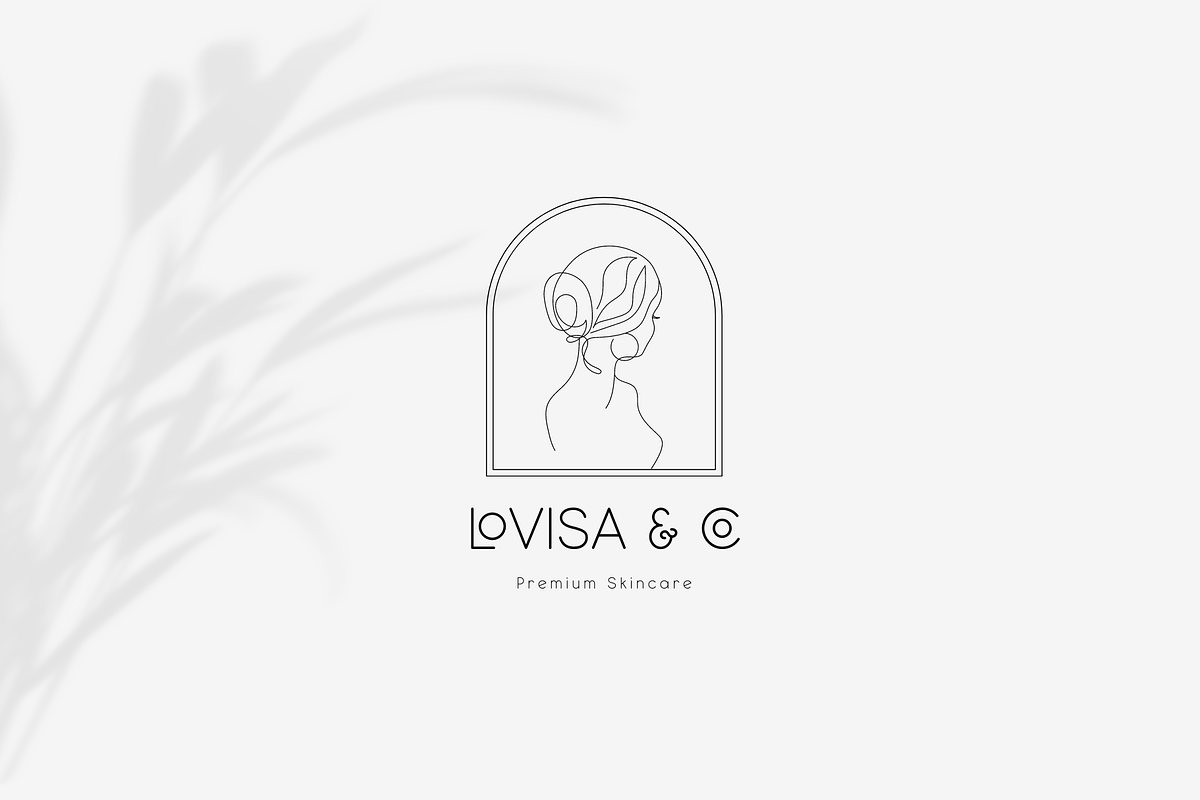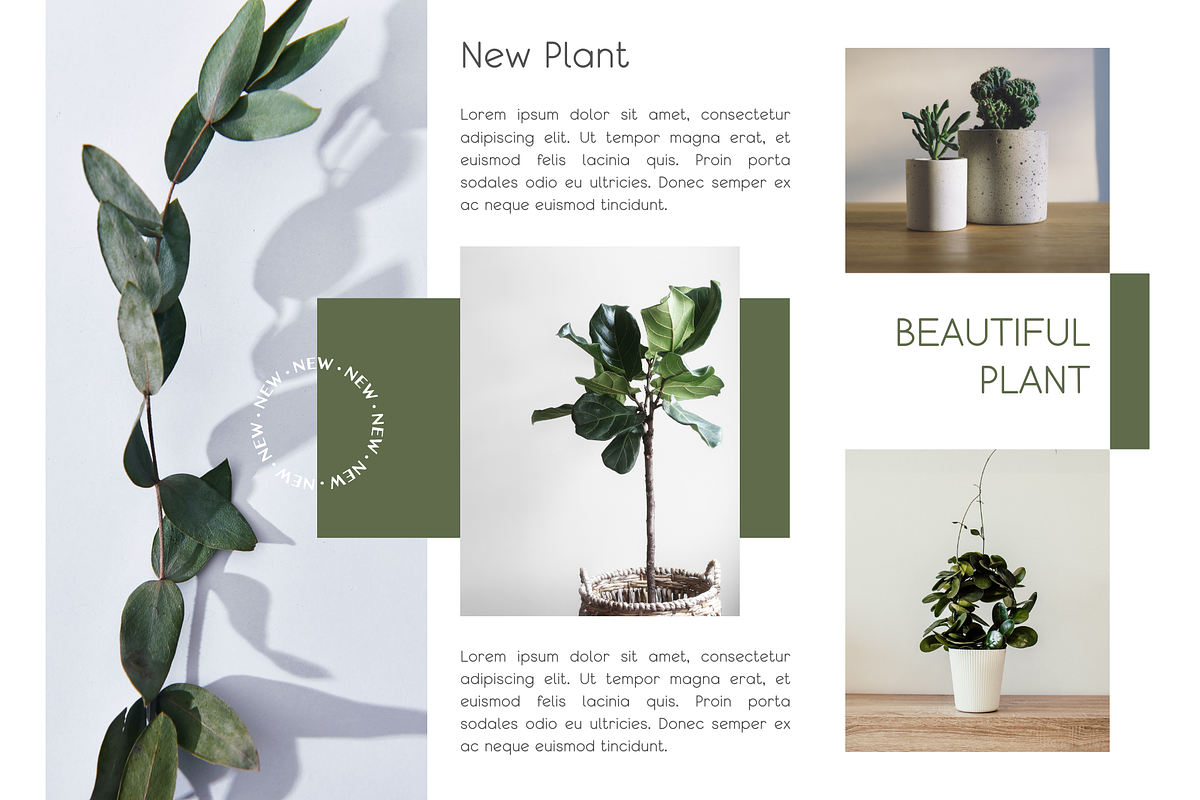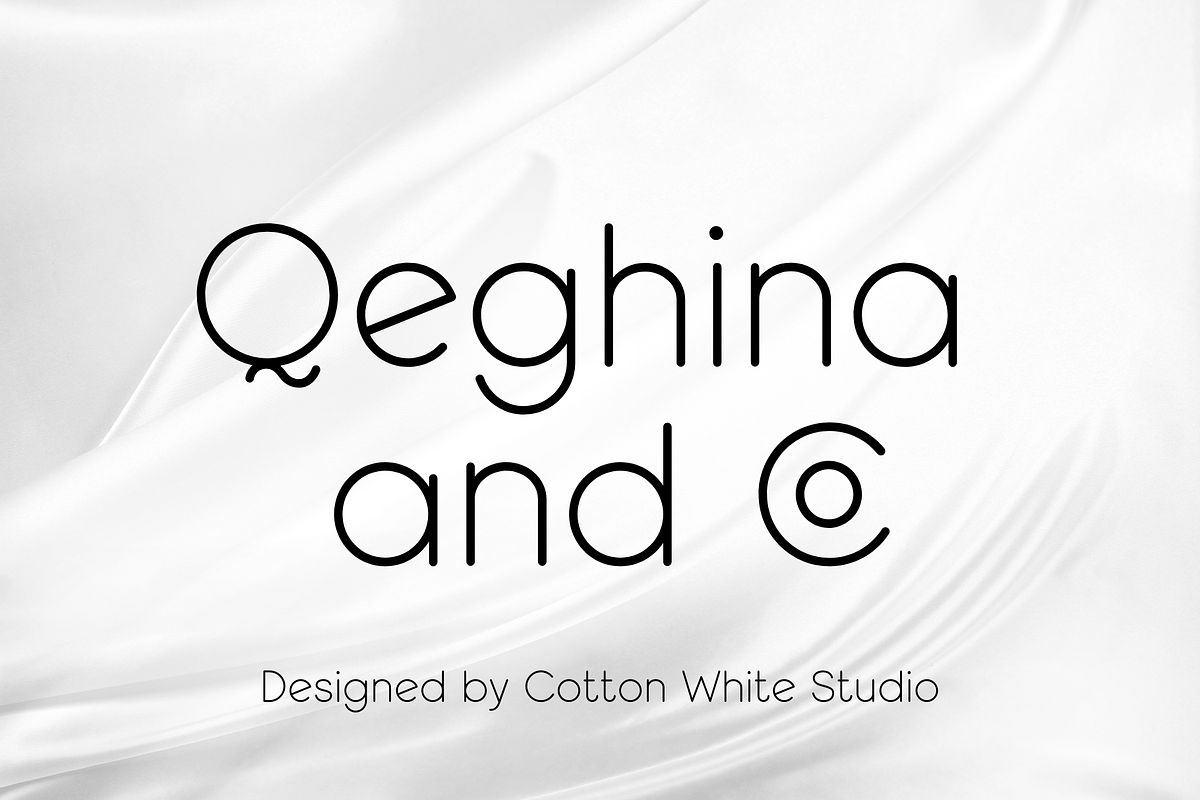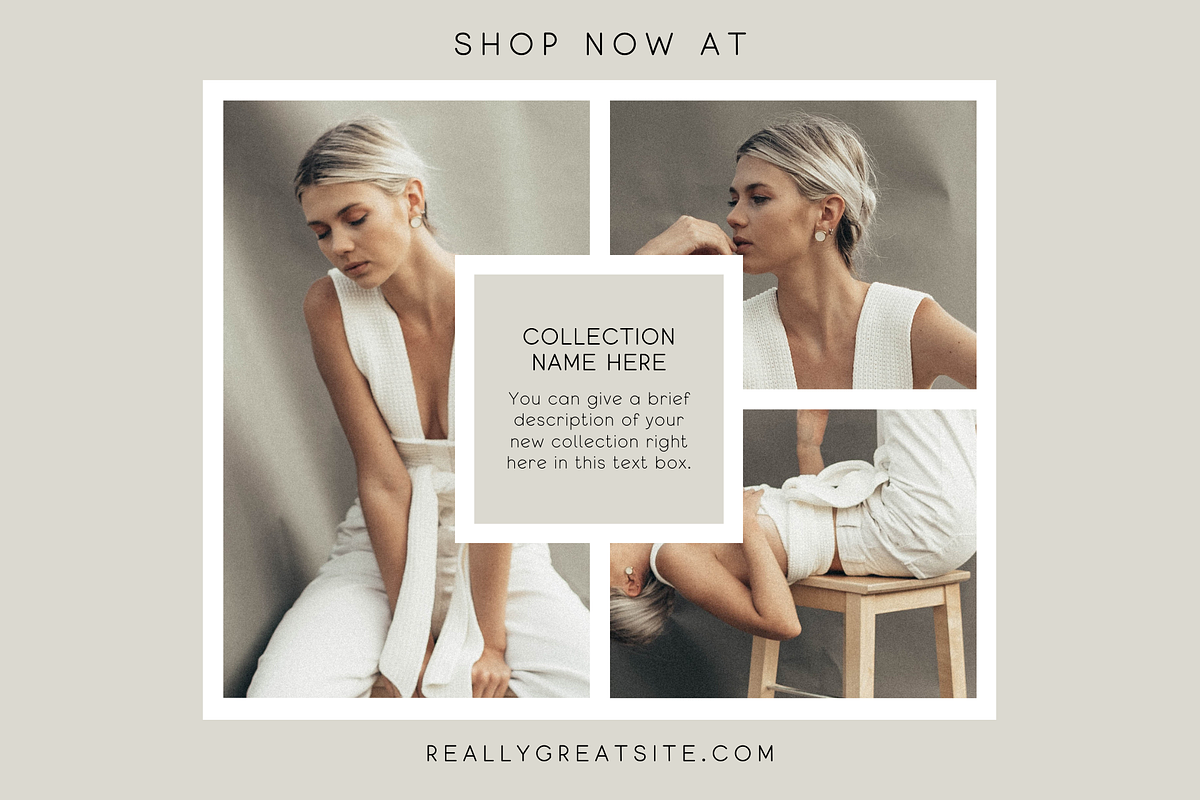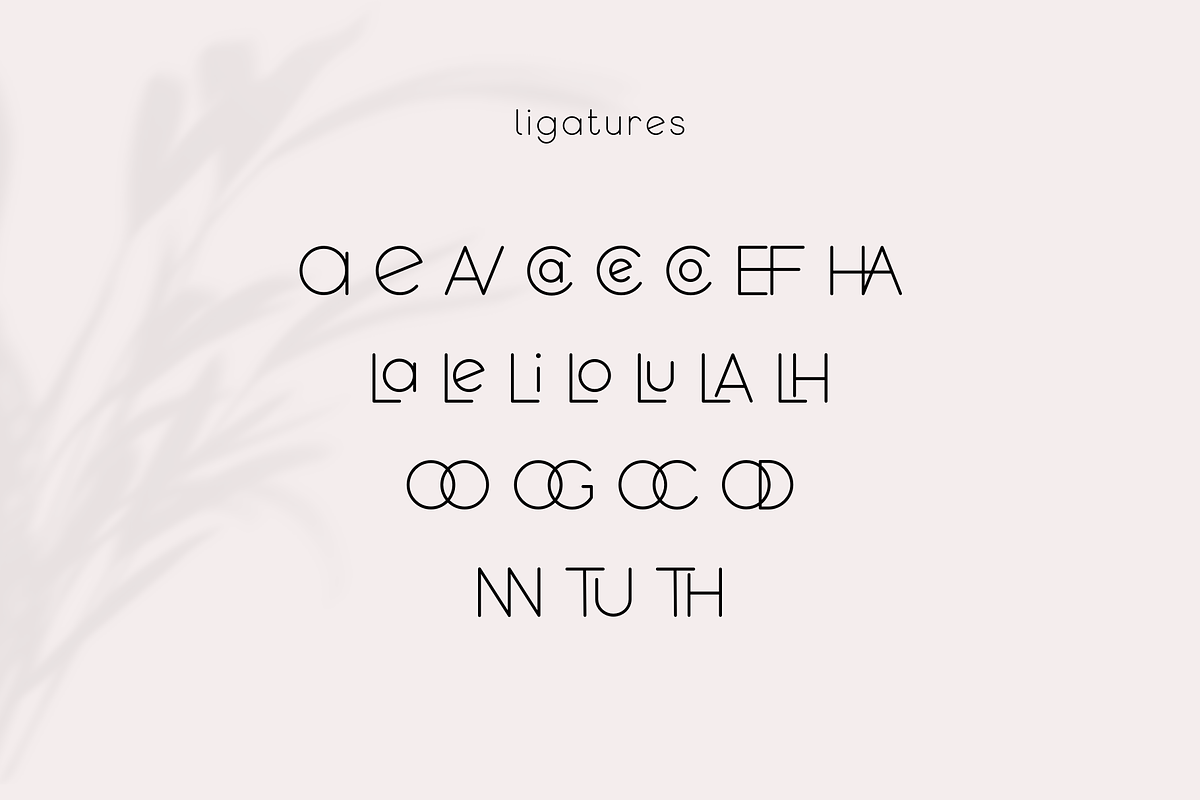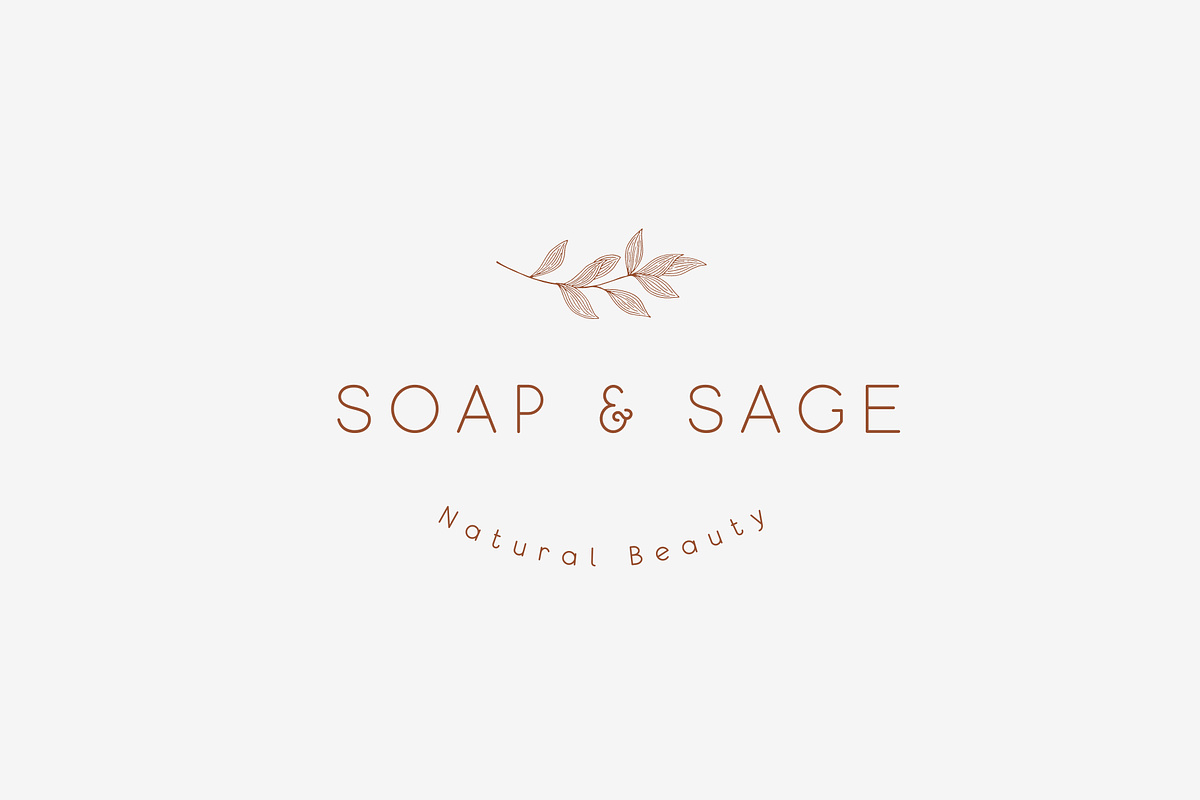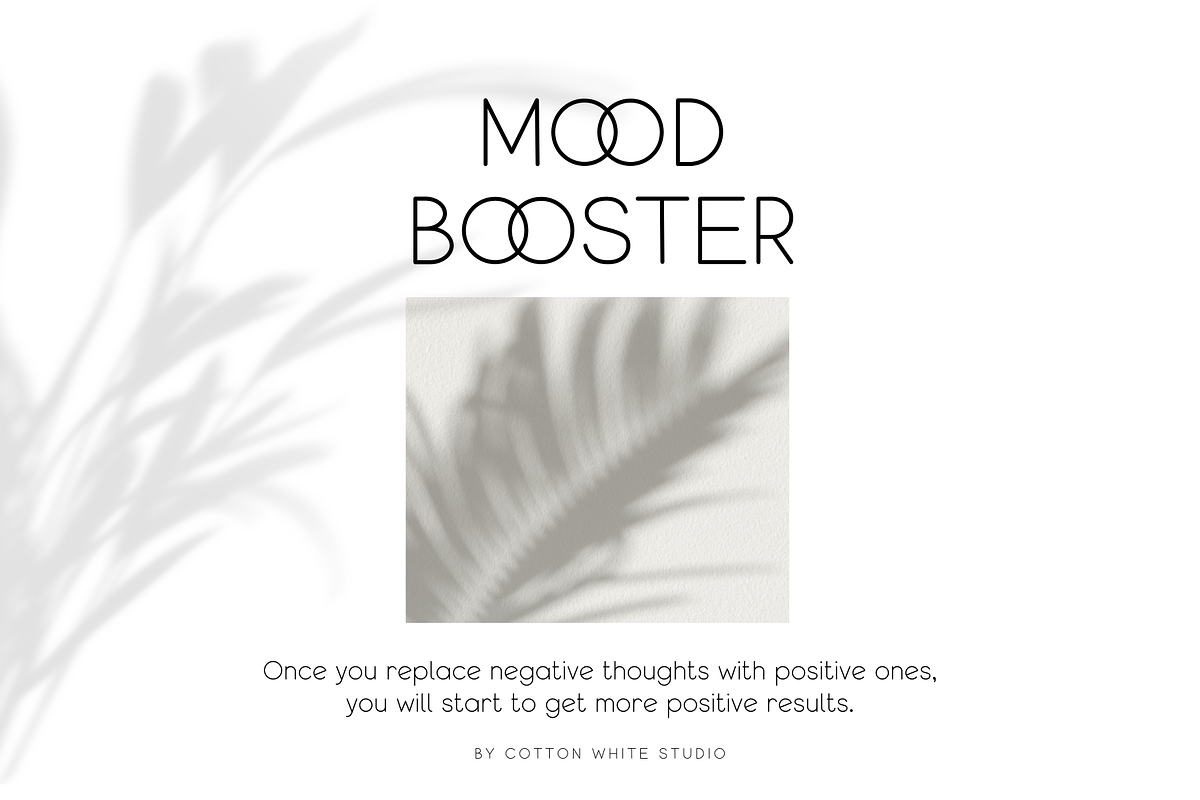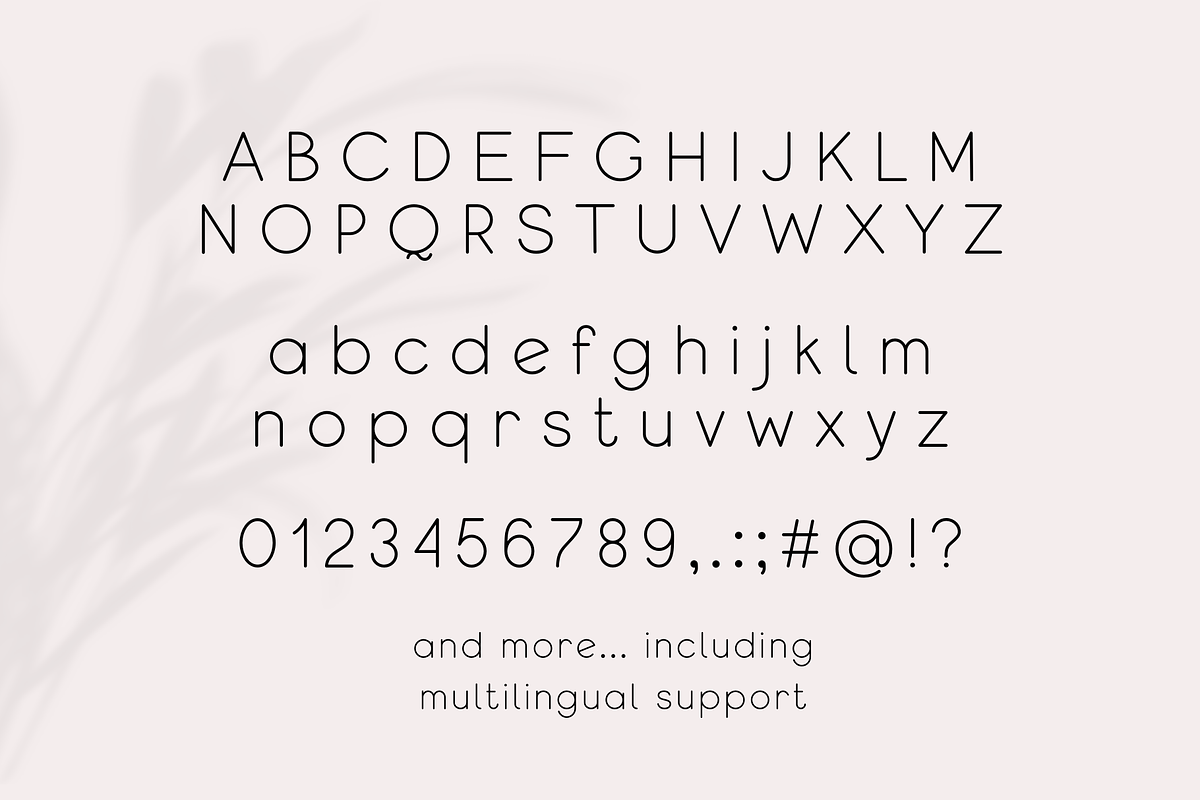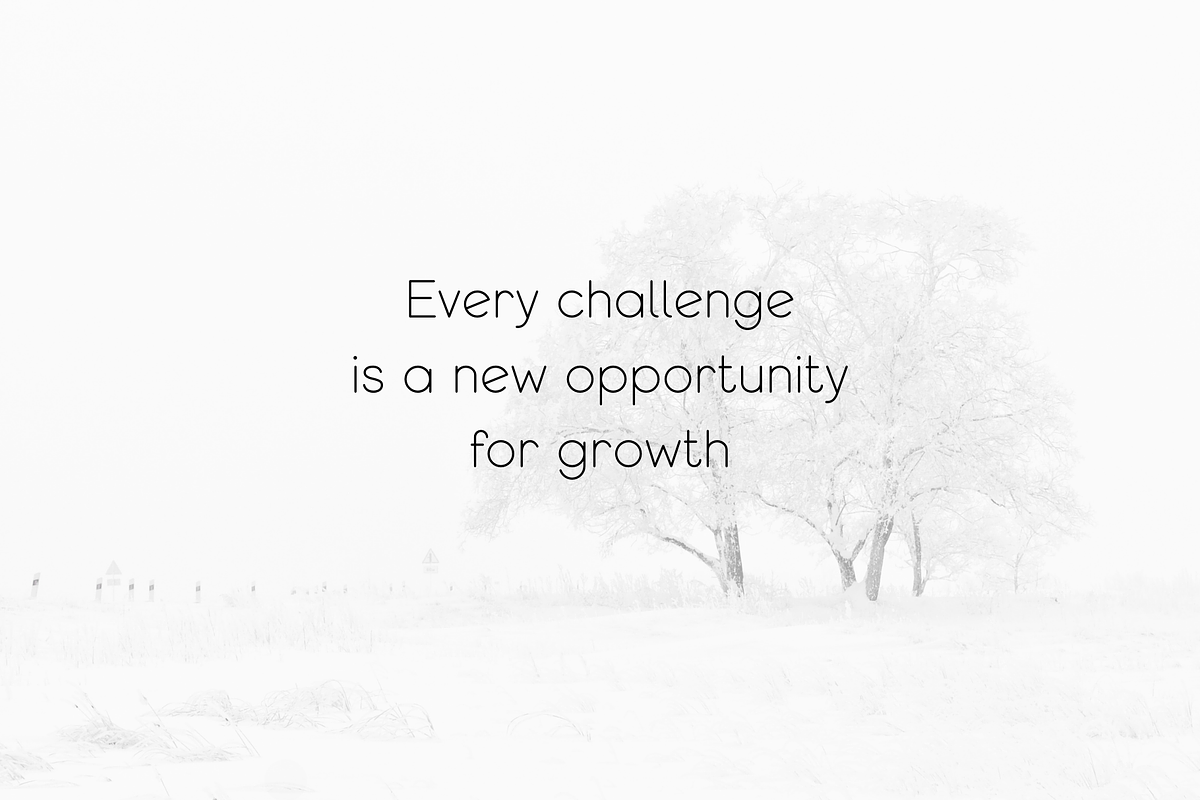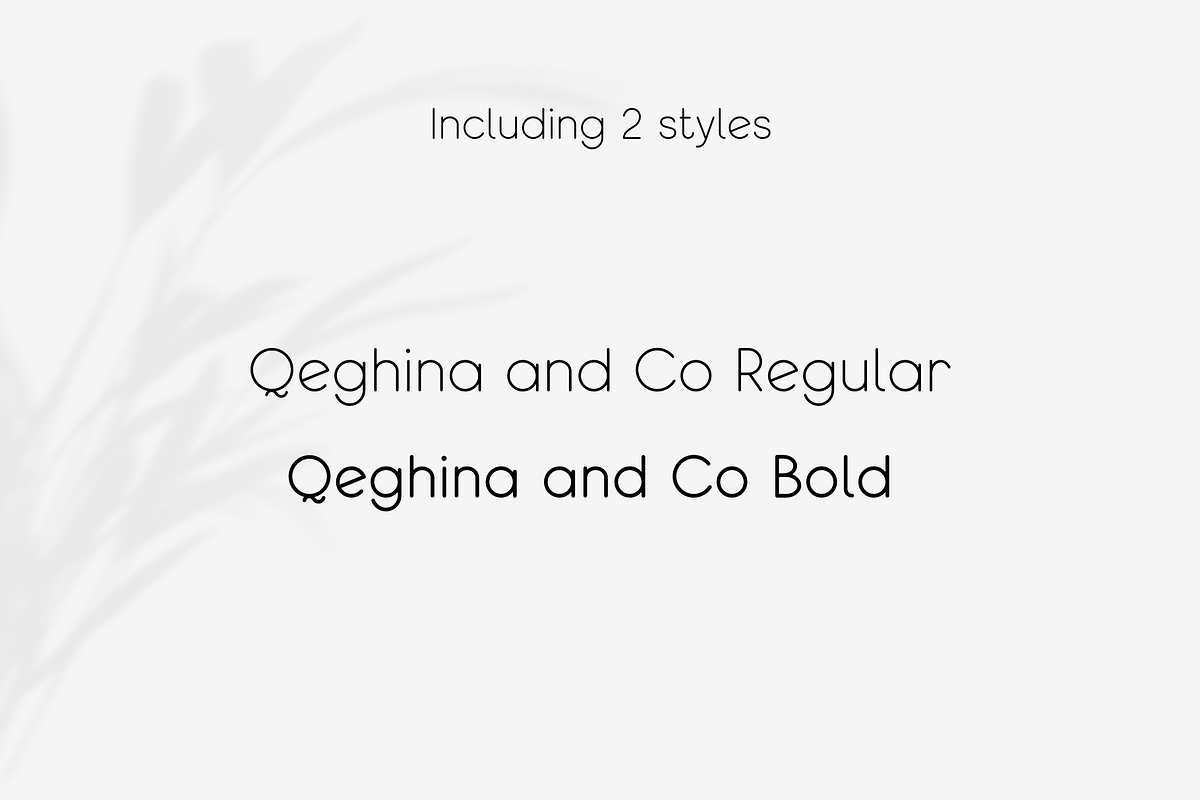
Qeghina and Co
Qeghina and Co is a modern sans serif font with a perfect combination of simplicity and versatility. With a clean and contemporary design, it's a great choice for any project that needs a professional touch. But don't let its simplicity fool you – this font also includes alternative characters and ligatures, giving you plenty of options to add some flair to your text. And with multilingual support, you can use this font to reach a global audience. Whether you're working on a website, branding materials, or marketing campaigns, this font is sure to become a go-to in your design toolkit.